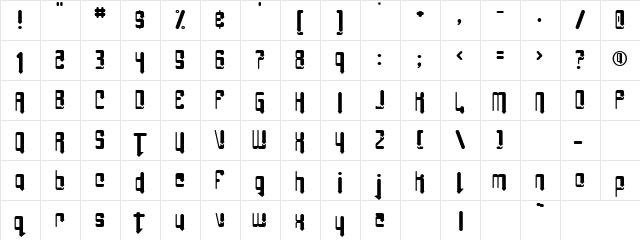
Pointer Regular
Design Context for Pointer Typeface
Pointer is a composed and adaptable typeface that performs quietly and consistently across a wide range of design contexts.